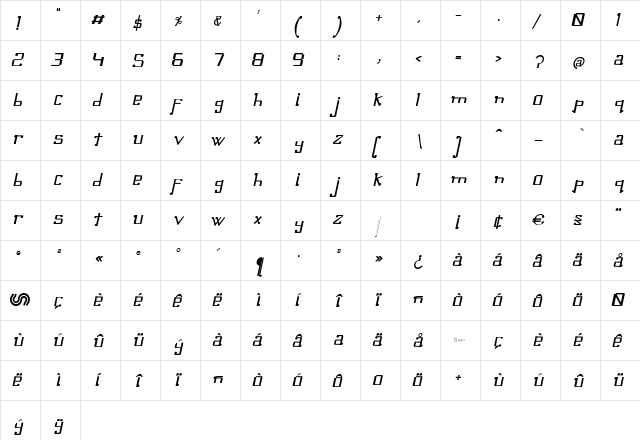
Omellons MediumItalic
Design Context for Omellons Typeface
Omellons takes a measured approach to typography — its balanced proportions and neutral character make it a reliable workhorse for both digital and print work. The dynamic lean of this cut emphasises speed and emphasis in any layout.